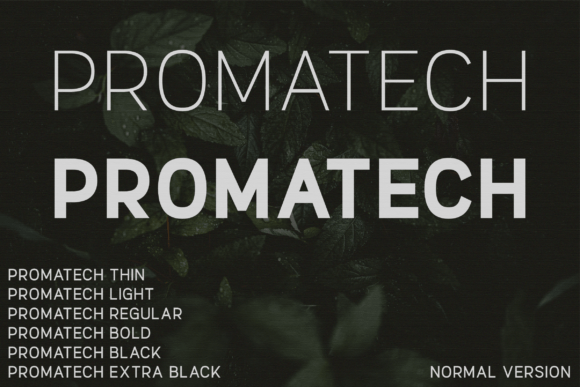
Step into a realm of effortless elegance with Promatech Font, a captivating sans serif collection that will redefine your design endeavors. Immerse yourself in a harmonious blend of minimalism and modernity, where each stroke exudes sophistication.
Embark on a creative journey with our meticulously crafted font family, meticulously designed to elevate your projects to new heights. With five distinct weights at your disposal, you hold the power to adapt Promatech Font seamlessly to any design vision.
Visualize your magazine covers adorned with the sleek lines of Promatech Font, capturing the essence of timeless storytelling. Envision your logos exuding an air of unparalleled professionalism, leaving an unforgettable mark on the world. Transform your film posters into works of art, evoking emotions that resonate with every viewer.
The Promatech Font family is your gateway to a world of limitless possibilities. Its versatility empowers you to craft designs that transcend the ordinary, captivating audiences with their understated allure. Embrace the power of simplicity and sophistication, and watch as your creations blossom into masterpieces that stand the test of time.
Don't let mediocrity hold you back. Unleash the boundless potential of Promatech Font today and embark on a design odyssey that will leave an indelible mark on the world. Your creative spirit awaits, yearning to express itself through the exquisite lines of this extraordinary font family.